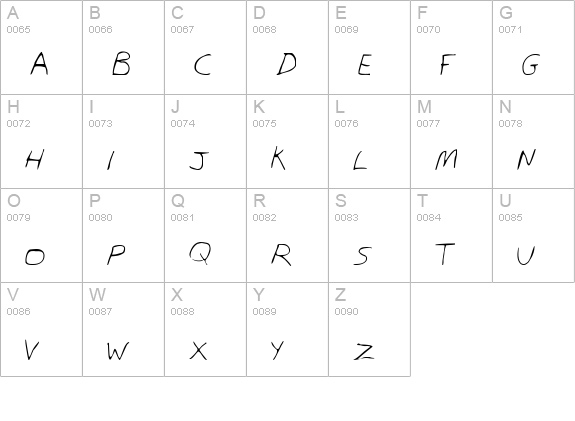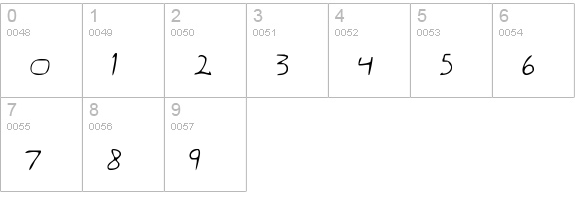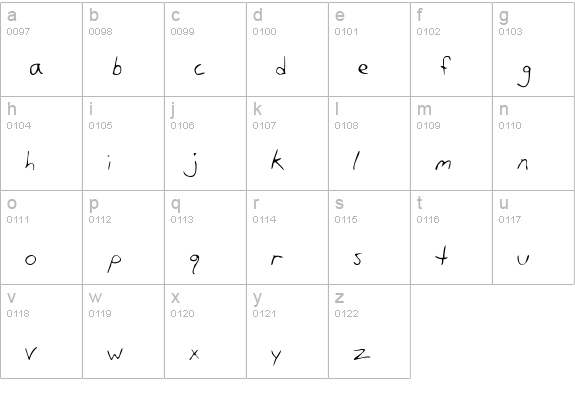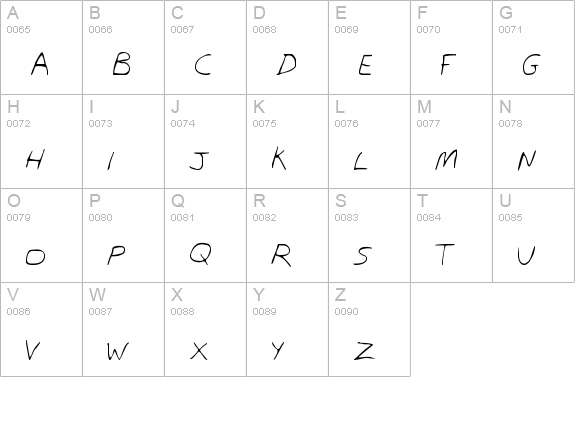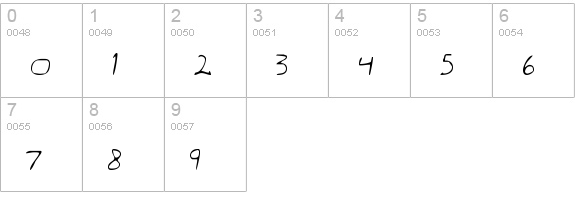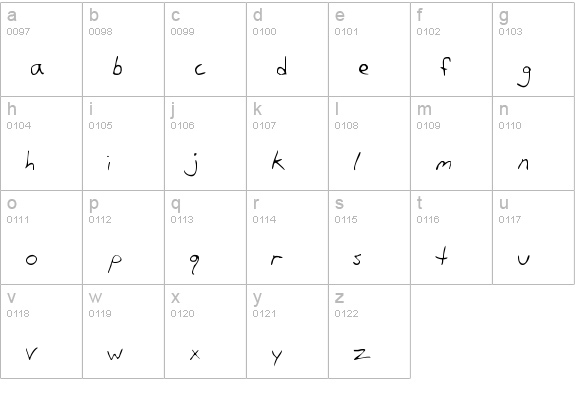
Dan's Hand Font Details
Introducing Dan's Hand font, a beautifully crafted typeface that perfectly captures the essence of handwritten elegance. With its delicate strokes and charming imperfections, this font brings a touch of warmth and authenticity to any project. Dan's Hand font is truly one-of-a-kind, offering a unique blend of sophistication and playfulness. Its carefully designed characters flow effortlessly across the page, creating a seamless and natural reading experience. Each letter feels like it was effortlessly penned by hand, adding a personal touch to every word. But what sets Dan's Hand font apart is not just its stunning aesthetic appeal. It is also available for free, allowing designers, creatives, and enthusiasts alike to experience its beauty without any limitations. Whether you're working on a personal project, a professional design, or simply looking to add a touch of elegance to your everyday writing, Dan's Hand font is the perfect choice. To obtain this exquisite font, simply head over to FontsMarket.com, where it is freely available for download. There is no need to worry about licensing restrictions or hidden costs – Dan's Hand font is yours to enjoy and use as you please. So, embrace the artistry and authenticity of Dan's Hand font, and let your creativity soar. Transform your designs into works of art with this free and captivating typeface, and leave a lasting impression on your audience. Download Dan's Hand font from FontsMarket.com today and experience the beauty of handwriting brought to life on your digital canvas.